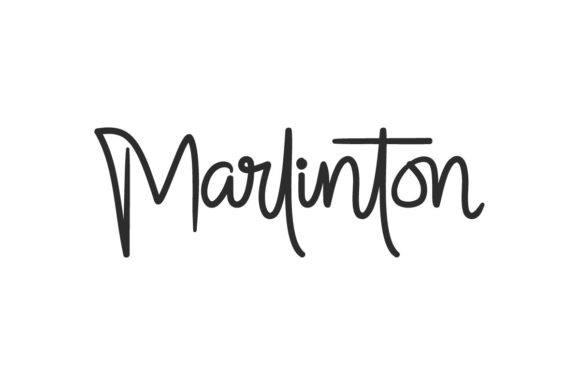
Unleash your creativity and add a touch of elegance to your digital creations with Marlinton Font, a captivating script font meticulously crafted by NihStudio. Immerse yourself in the world of breathtaking calligraphy, where every letter dances with grace and sophistication.
Marlinton Font is not just a font; it's an expression of your unique style, a reflection of your artistic flair. With its enchanting curves and delicate swashes, this font will transform your words into works of art. Experience the joy of effortless writing as you glide through your projects, leaving a trail of beauty in your wake.
With Marlinton Font, you'll discover a world of endless possibilities. Design eye-catching logos that command attention, create stunning invitations that leave a lasting impression, or craft heartfelt letters that speak from the soul. Let your imagination soar as you explore the myriad ways to incorporate this font into your digital masterpieces.
But what truly sets Marlinton Font apart is its versatility. Whether you're a seasoned designer or just starting your creative journey, this font is your perfect companion. Its intuitive design ensures a seamless experience, while its PUA encoding grants you effortless access to a treasure trove of glyphs and swashes.
Elevate your digital creations to new heights with Marlinton Font. Experience the joy of effortless writing, the freedom of limitless creativity, and the satisfaction of creating truly captivating designs. Embrace the elegance, embrace the beauty, and embrace the power of Marlinton Font - your gateway to a world of stunning digital artistry.